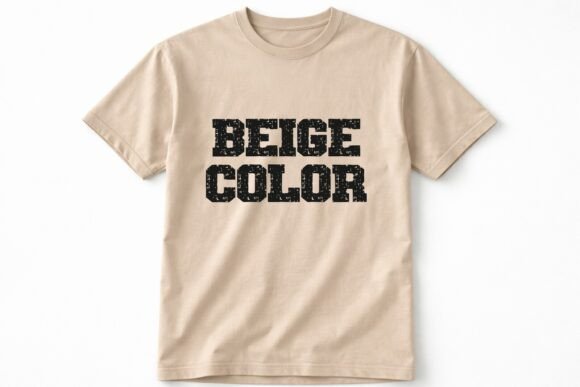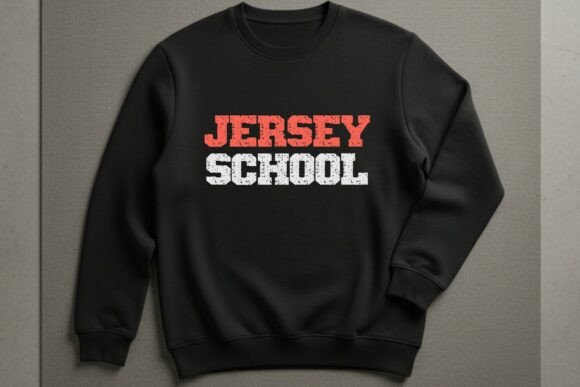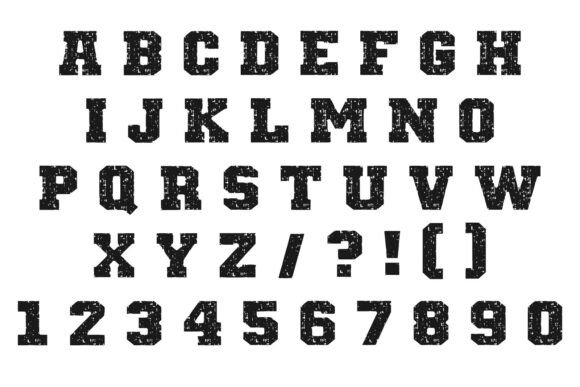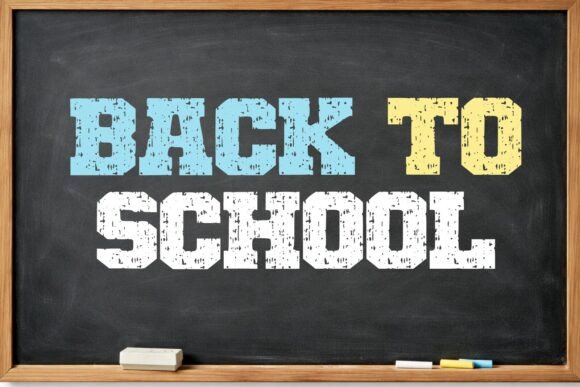
Introducing Heavy Grunge: The Ultimate Bold Vintage Display Font
Are you looking for a font that adds a raw and vintage aesthetic to your designs? Look no further than Heavy Grunge, a bold vintage display font that is perfect for creating eye-catching and authentic retro-themed projects. With its rugged distressed texture and strong letterforms, Heavy Grunge is ideal for designers and crafters who want to add a classic vintage feel to their work.
The Characteristics of Heavy Grunge
Heavy Grunge is a bold and rugged font that features a distressed texture, giving it a worn-out look that is reminiscent of vintage designs from the past. The strong letterforms combined with grunge details create a powerful and eye-catching style that is perfect for making a statement. The font’s rough texture adds character and personality to any design, making it ideal for a wide range of applications.
Uses for Heavy Grunge
Heavy Grunge is a versatile font that can be used for a variety of design projects, including:
- Posters: Create eye-catching posters that grab attention with Heavy Grunge’s bold and rugged style.
- Branding: Add a vintage touch to your brand’s identity with Heavy Grunge’s authentic retro aesthetic.
- Logos: Create a memorable logo that stands out from the crowd with Heavy Grunge’s unique and distressed texture.
- Apparel designs: Add a raw and edgy touch to your apparel designs with Heavy Grunge’s bold and rugged style.
- Packaging: Create eye-catching packaging that stands out on store shelves with Heavy Grunge’s distressed texture and vintage aesthetic.
- Signage: Create attention-grabbing signage that makes a statement with Heavy Grunge’s bold and rugged style.
- Social media graphics: Add a vintage touch to your social media graphics with Heavy Grunge’s authentic retro aesthetic.
- Retro-themed projects: Create authentic retro-themed projects that transport your audience back in time with Heavy Grunge’s classic vintage feel.
The Benefits of Using Heavy Grunge
Heavy Grunge offers a range of benefits for designers and crafters, including:
- Unique and authentic vintage aesthetic: Heavy Grunge’s distressed texture and rugged style create a unique and authentic vintage aesthetic that sets it apart from other fonts.
- High-quality design: Heavy Grunge is a high-quality font that is designed to produce crisp and clear results, even at large sizes.
- Versatility: Heavy Grunge can be used for a wide range of design projects, from posters and branding to logos and apparel designs.
Tips for Using Heavy Grunge
Here are a few tips for using Heavy Grunge in your designs:
- Experiment with different colors: Heavy Grunge looks great in a range of colors, from bold and bright to muted and pastel.
- Combine with other fonts: Heavy Grunge can be combined with other fonts to create a unique and eye-catching style.
- Use for headlines and titles: Heavy Grunge is perfect for headlines and titles, where its bold and rugged style can make a big impact.
- Add texture and effects: Consider adding texture and effects to your design to enhance Heavy Grunge’s distressed texture and vintage aesthetic.
Heavy Grunge is a bold vintage display font that is perfect for designers and crafters who want to add a raw and vintage aesthetic to their designs. With its rugged distressed texture and strong letterforms, Heavy Grunge is ideal for a wide range of applications, from posters and branding to logos and apparel designs. Whether you’re looking to create a unique and eye-catching style or simply want to add a vintage touch to your designs, Heavy Grunge is the perfect choice.